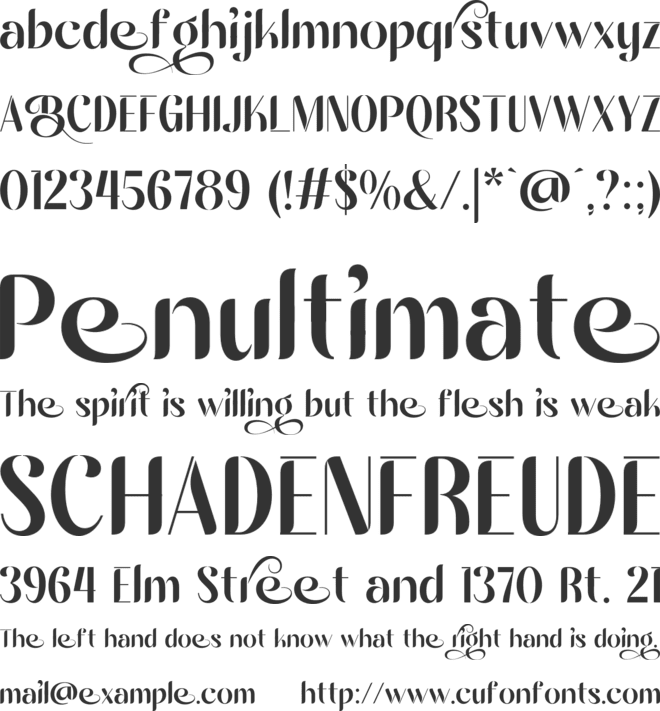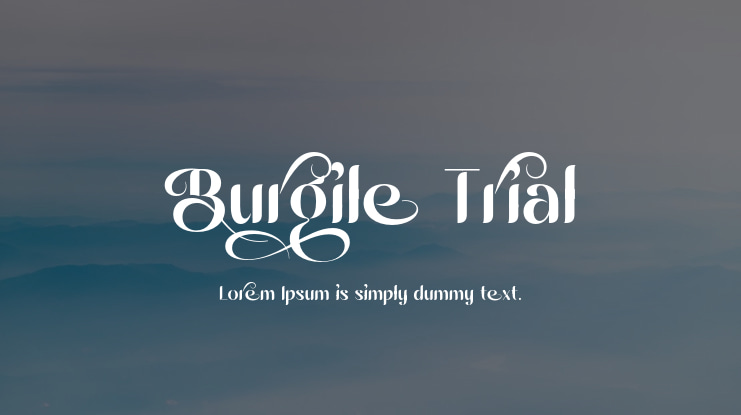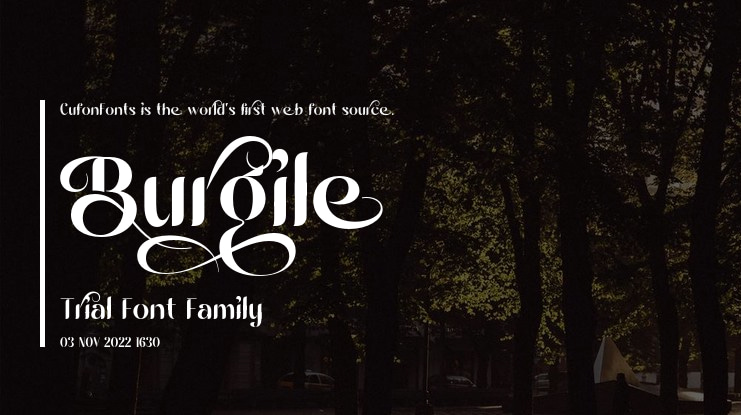
Burgile Trial Font
The "Burgile Happy Sans Serif" font offers a combination of simplicity and elegance, making it a perfect choice for various typographic projects. With its clean lines and contemporary design, this sans serif font stands out as a stylish option for branding and editorial design purposes.